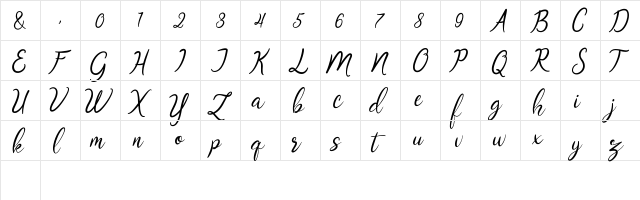
Oklahoma Script Regular Font Preview
Oklahoma Script Regular
Oklahoma Script Regular Font Details
| Designer | Almeerastudio 2018 |
Design Context for Oklahoma Script Typeface
Oklahoma Script brings a calligraphic fluidity to the page — its connecting strokes and expressive curves give it an unmistakably human quality.
Font Pairing: Combine Oklahoma Script with a simple geometric sans for maximum contrast — the tension between flowing curves and clean structure is a classic typographic pairing.
Pro Tip: Pair Oklahoma Script with a clean sans-serif for supporting text. The contrast between fluid script and geometric structure creates an elegant typographic hierarchy.